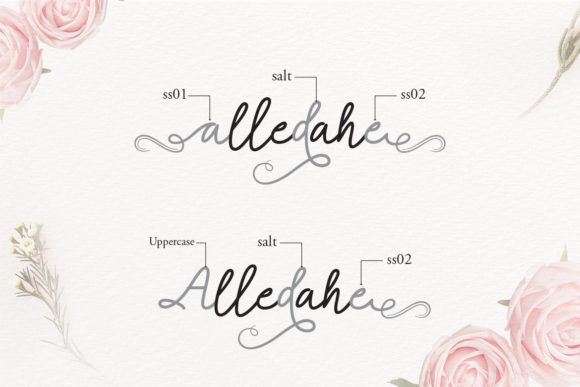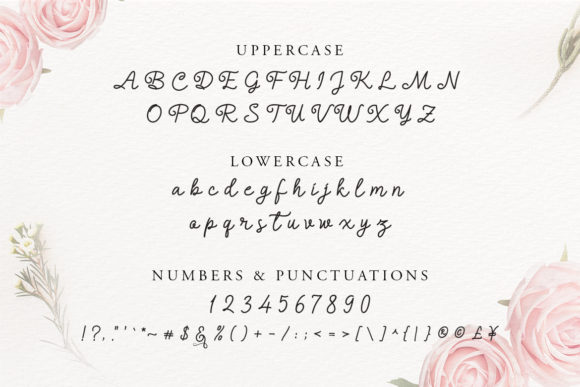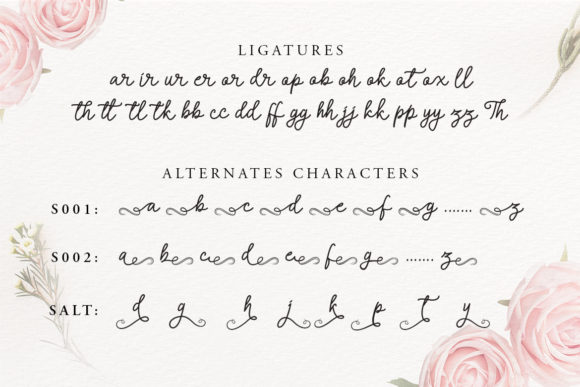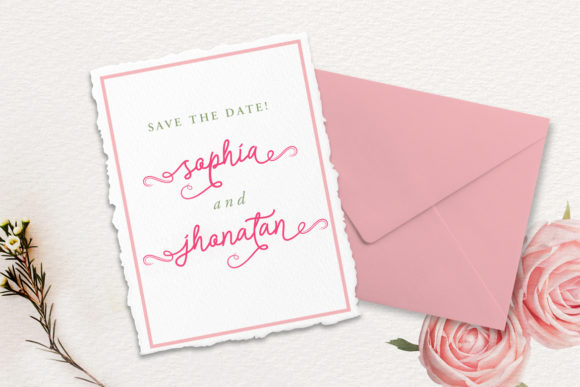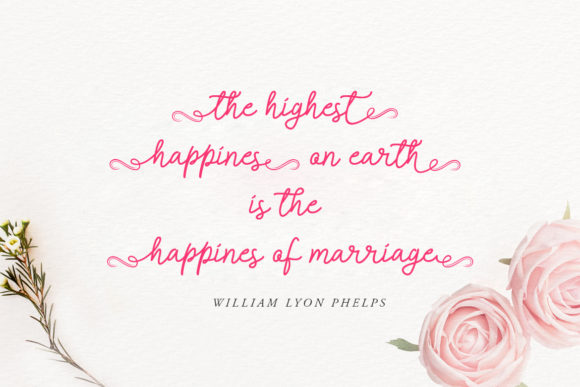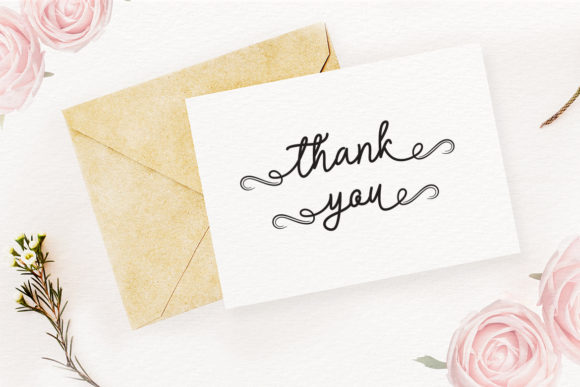
The Alledahe Font: A Romantic Touch for Your Designs
The Alledahe font is a beautiful, romantic font with an attractive and elegant style. Its curved lines and feminine feel make it perfect for designs that require a touch of sophistication and whimsy. In this article, I’ll share my experience with the Alledahe font, its features, and how to use it to elevate your designs.
An Honest Review of Alledahe Font
What I Love About Alledahe Font ✨
- 💫 Elegant and romantic feel, perfect for wedding invitations, greeting cards, and other special occasions
- ✅ Attractive curved lines that add a touch of sophistication to any design
- 🎉 Versatile and can be used for a variety of design projects, from branding to posters
- 👍 Easy to read and works well in both digital and print formats
- ⚠️ Limited availability of stylistic alternates, which may limit its use in certain design projects
- 🤔 May not work well with very bold or bright color schemes, as its elegant feel may get lost
The Designer Inspiration Behind Alledahe Font
The Alledahe font was designed with the intention of creating a beautiful and elegant font that captures the essence of romance and sophistication. The designer, inspired by the beauty of handwritten scripts, aimed to create a font that would be perfect for designs that require a touch of whimsy and elegance. With its attractive curved lines and feminine feel, Alledahe font is sure to become a favorite among designers and crafters.
| Font Name | Alledahe Font |
| Author | Rabas Design |
Q: What is the Alledahe font best used for?
A: The Alledahe font is best used for designs that require a romantic and elegant feel, such as wedding invitations, greeting cards, and other special occasions.
Q: Is the Alledahe font available in different weights or styles?